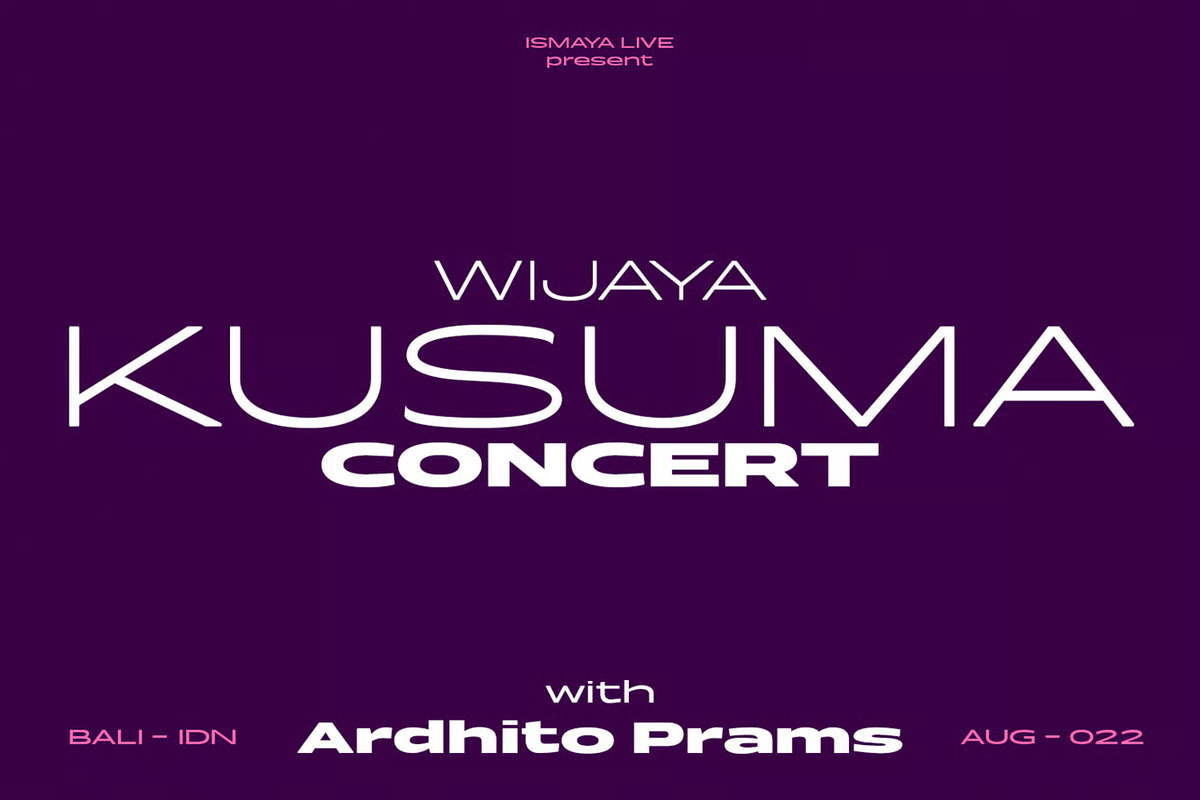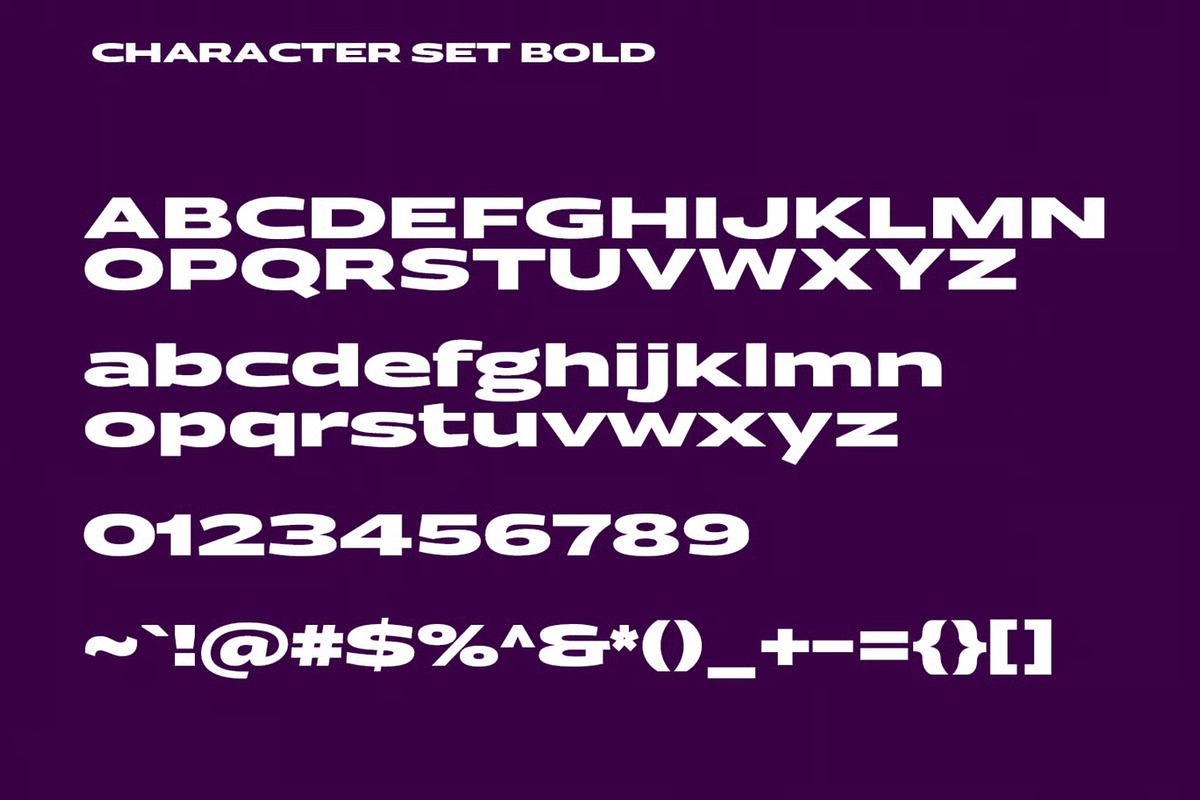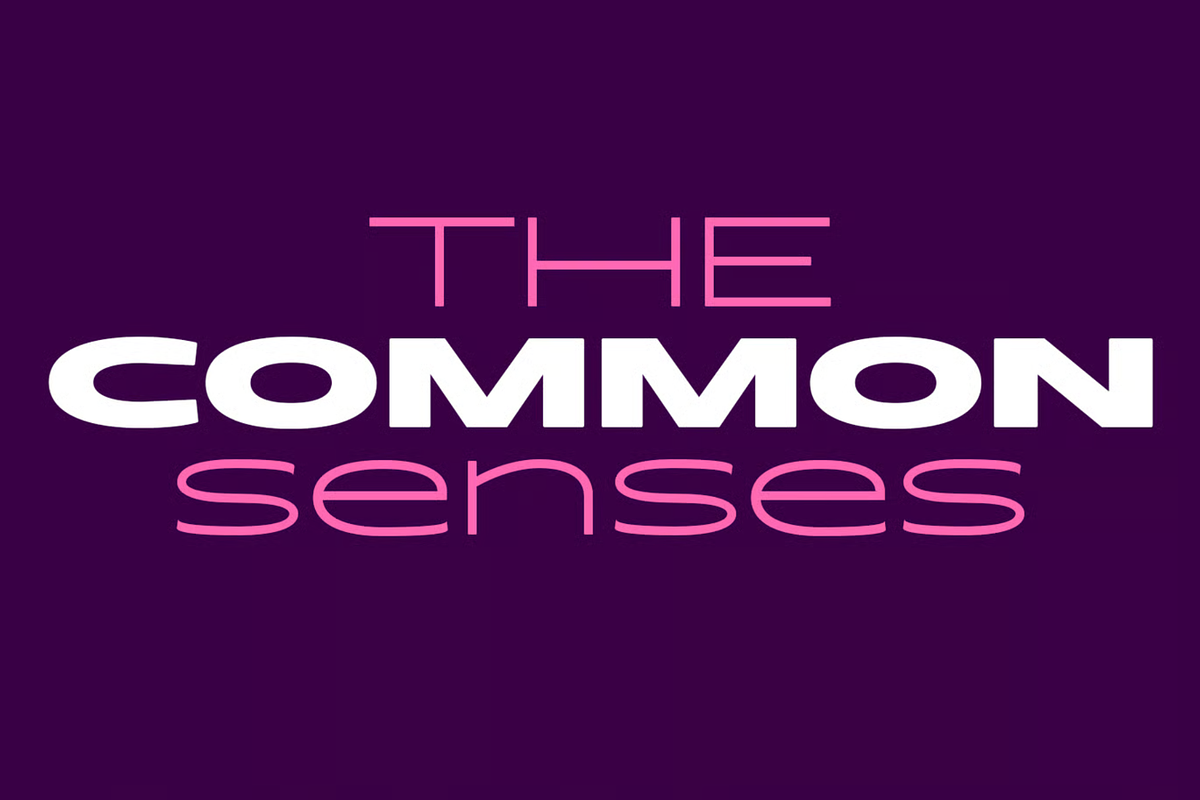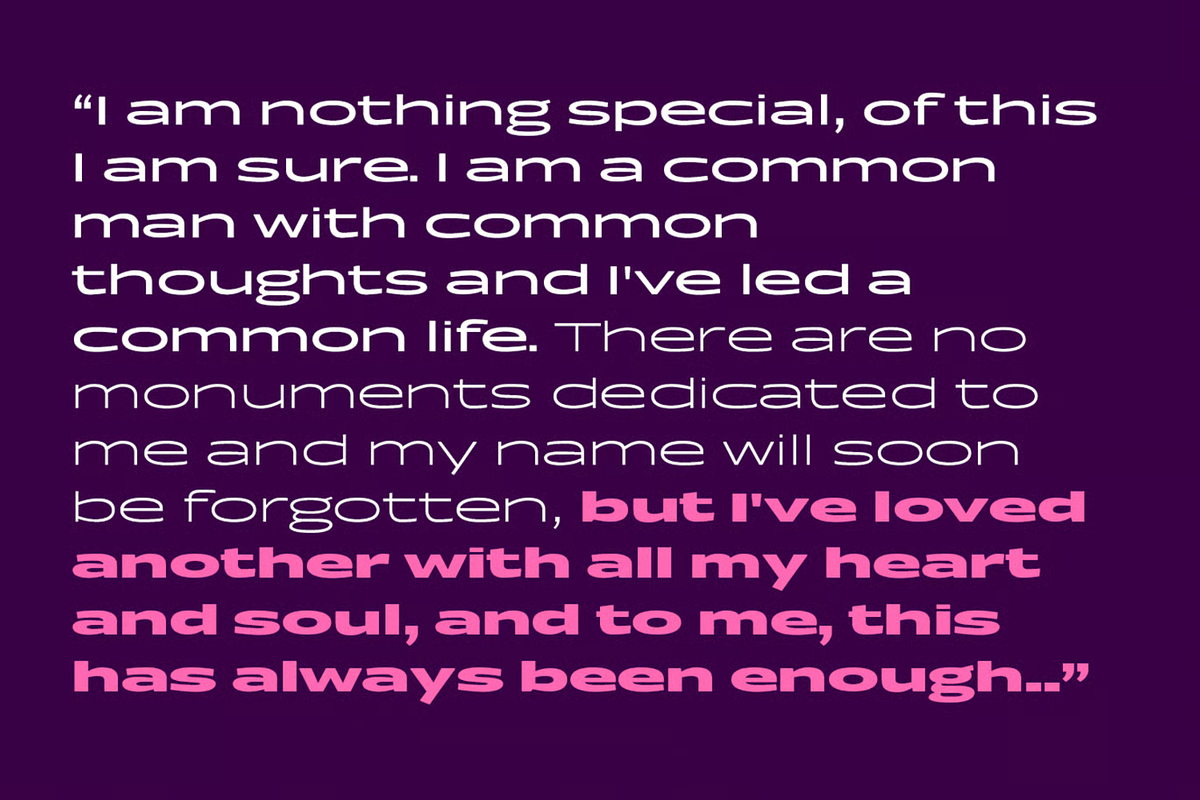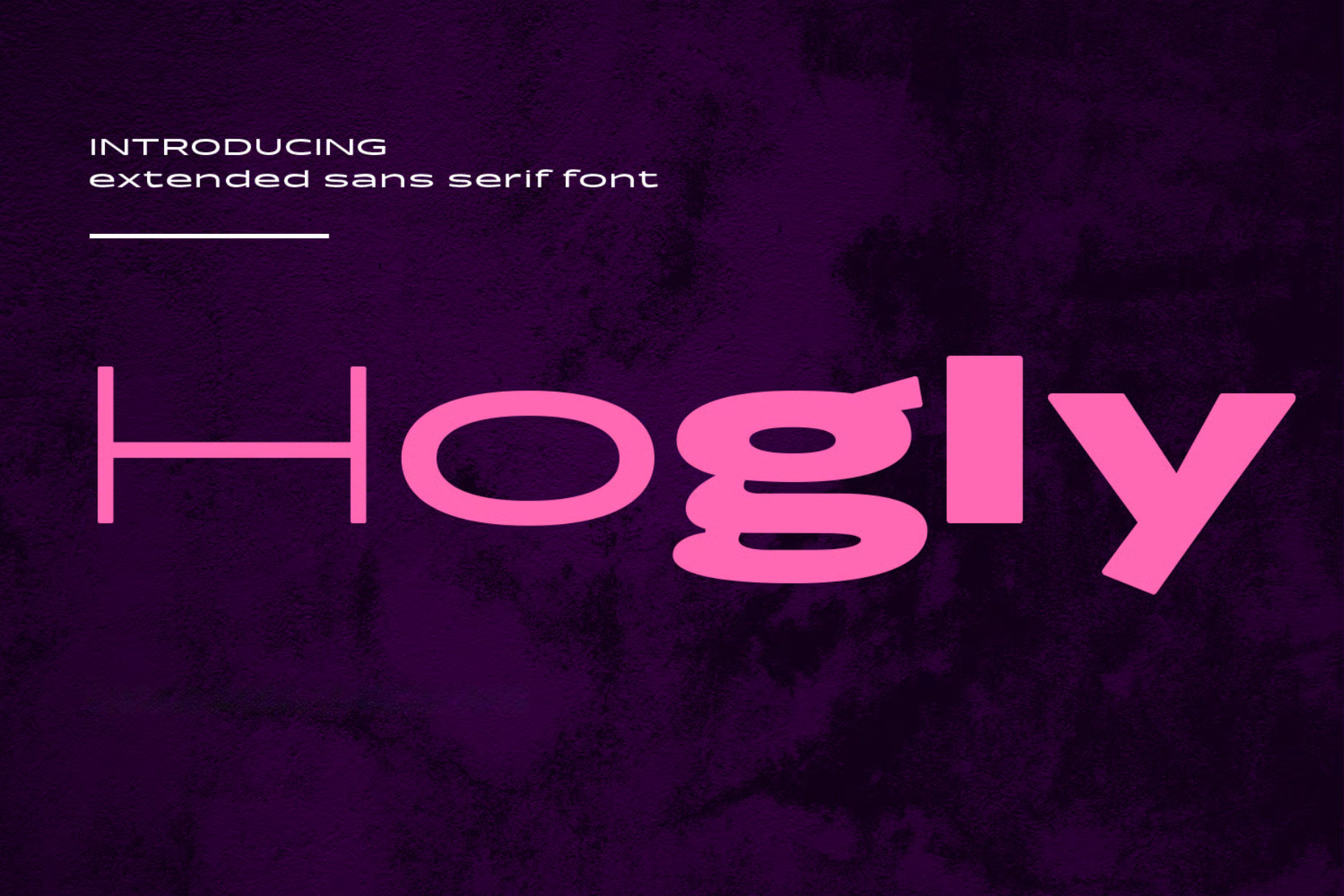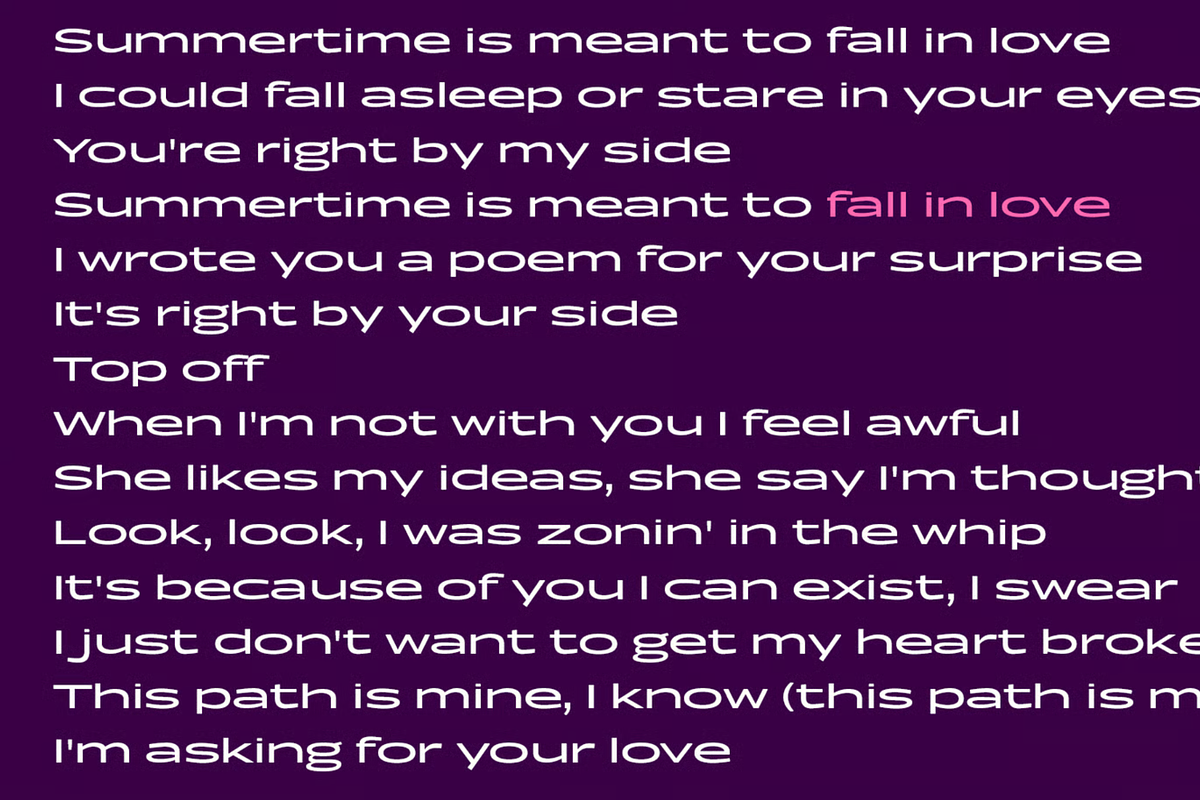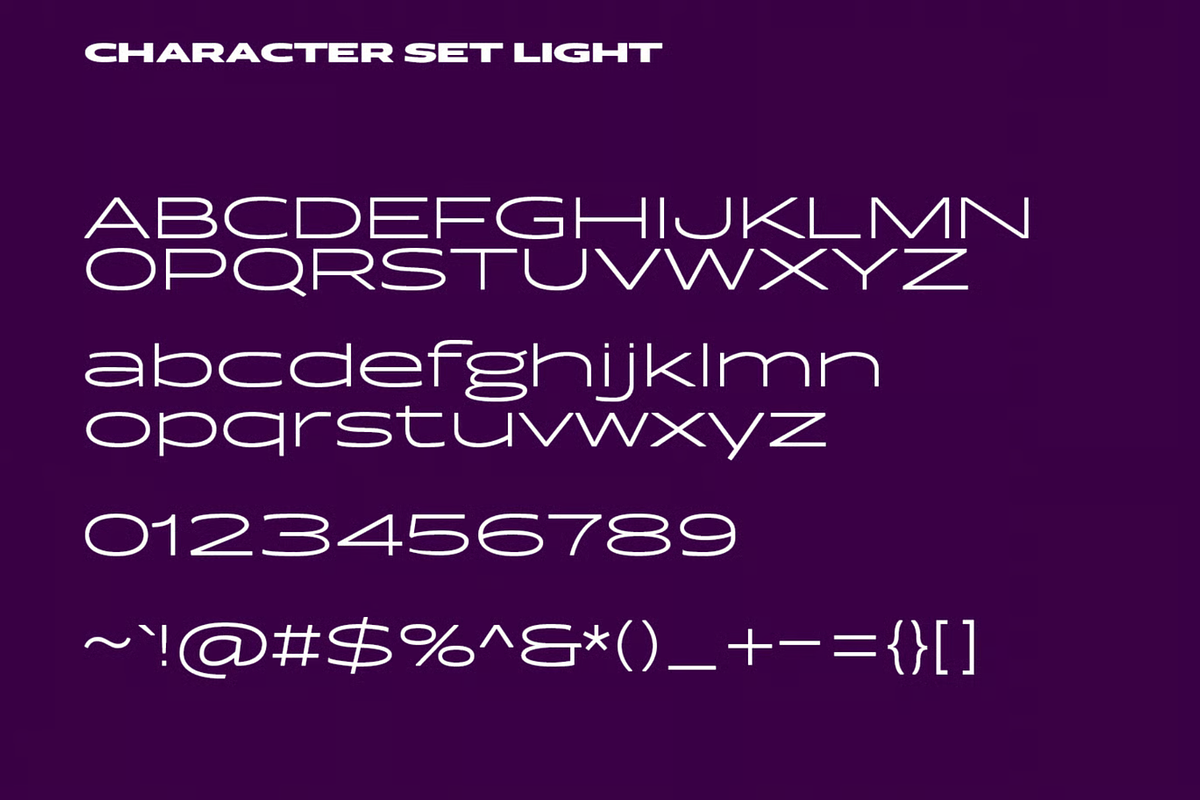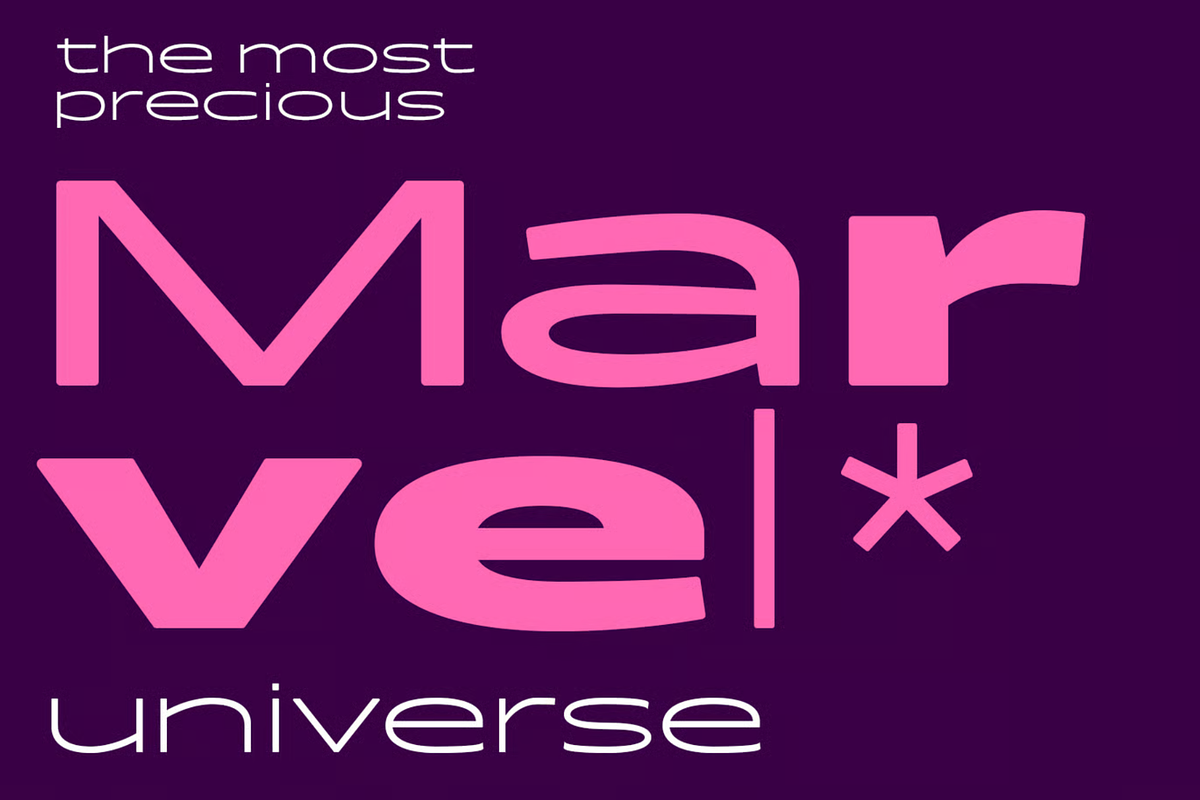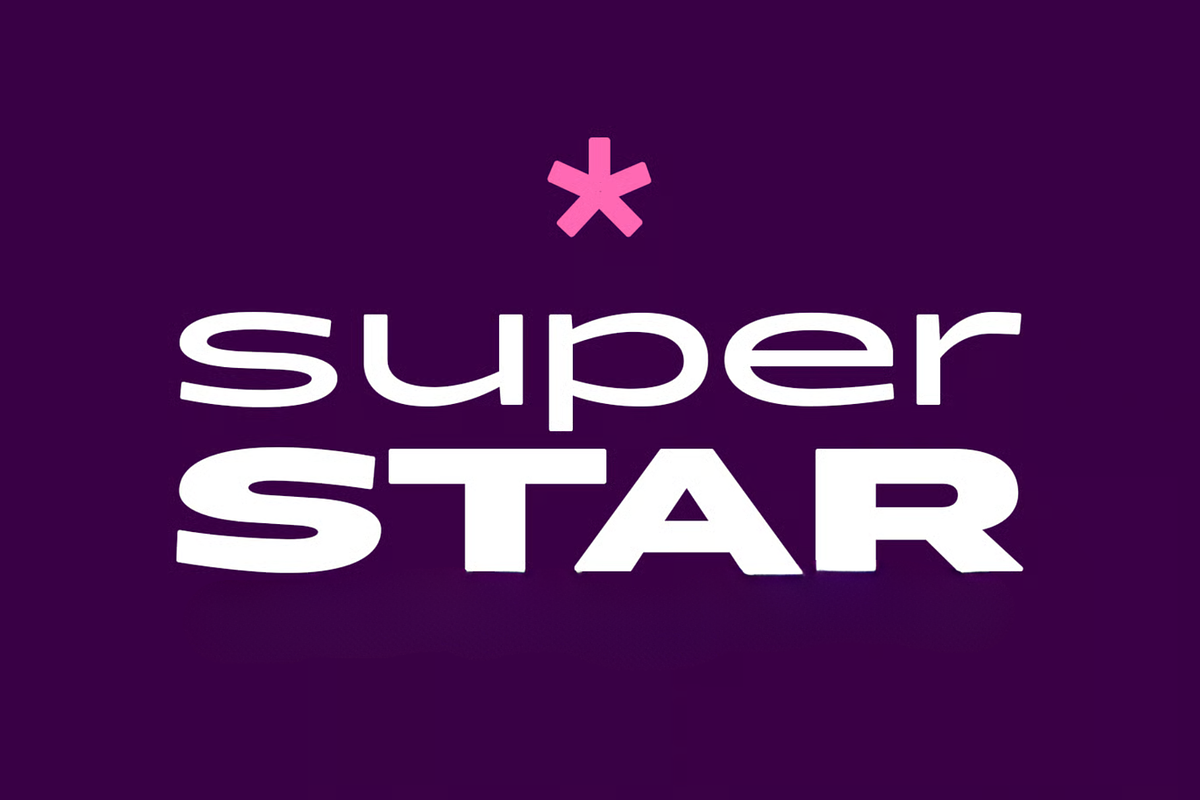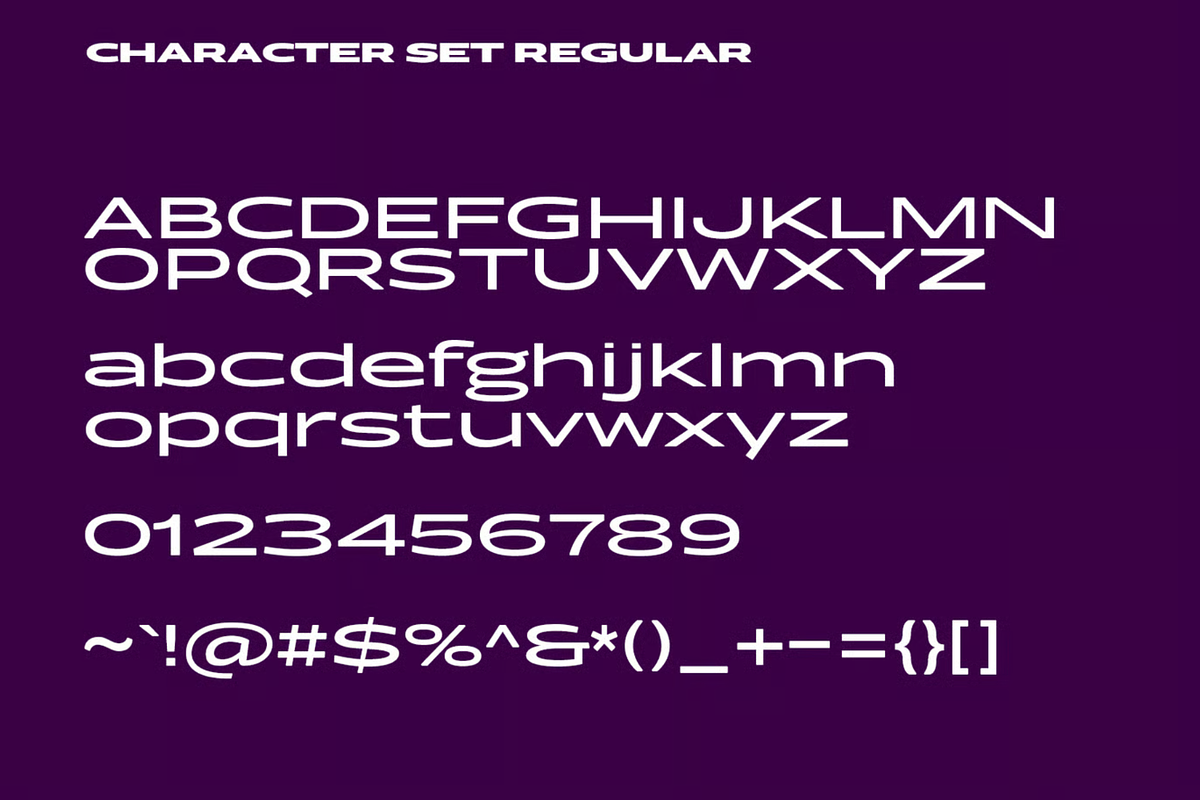
Hogly Extended Sans Serif Font
Hogly is a modern wide sans serif diplay font. With 3 weights stroke, fun character. To give you an extra creative work. Hogly font support multilingual more than 100+ language. This font is good for logo design, Social media, Movie Titles, Books Titles, a short text even a long text letter and good for your secondary text font with script or serif. Make a stunning work with Hogly font.